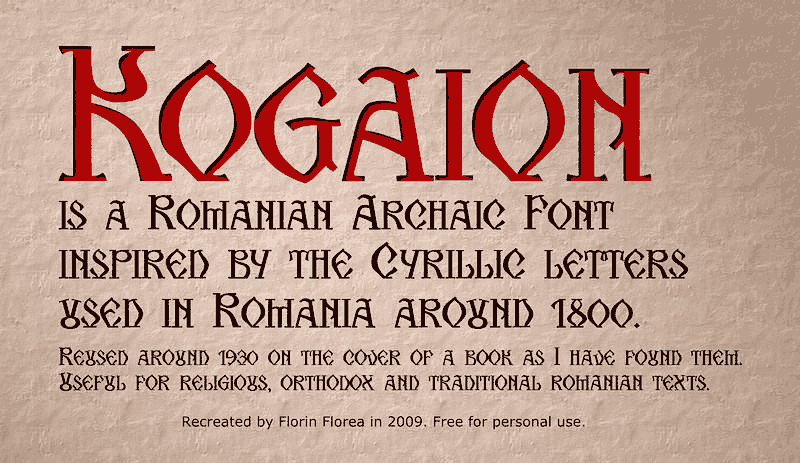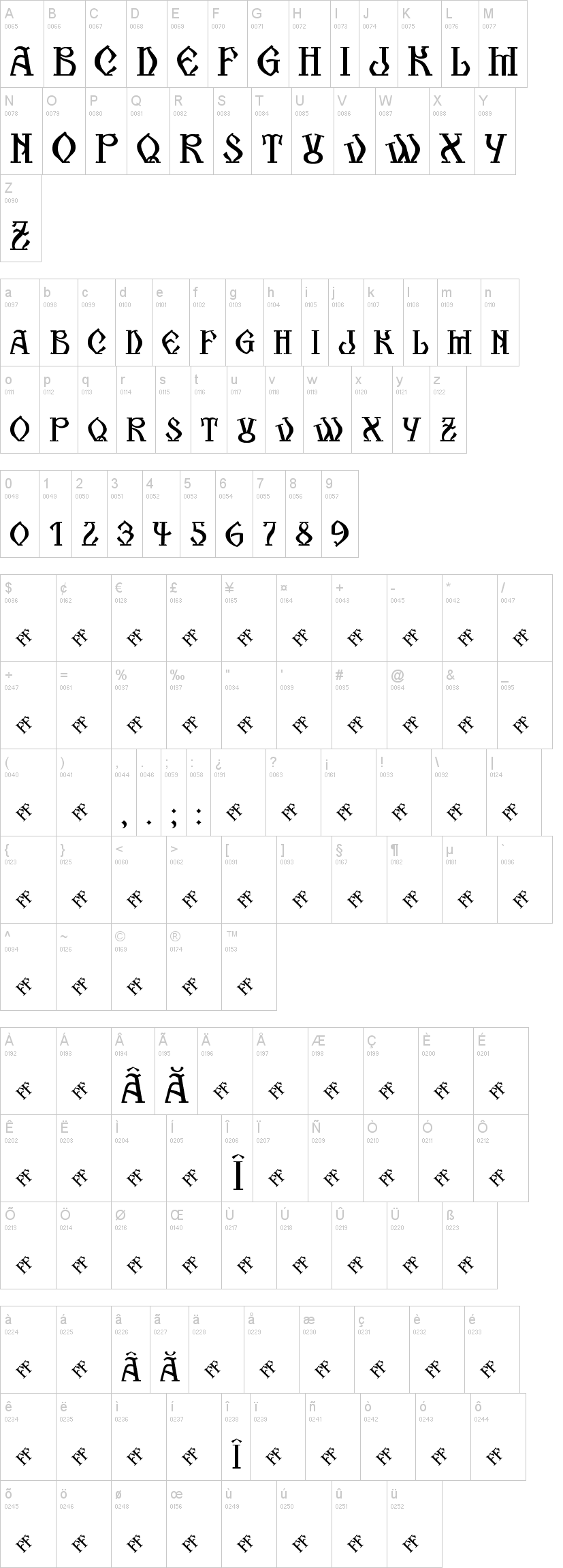
Note of the authorThis is an old Romanian style typeface called "Arhaic Romanesc", based on Cyrillic alphabet that was used in Romania around 1500 until 1860 for Church Slavonic and Romanian texts. The old lettershapes were later used for the Latin alphabet preserving a sort of Romanian traditional feel. I have started this font (Kogaion) in 2009 (http://florinf.wordpress.com/2009/04/14/kogaion-arhaic-romanesc-ex-cali/). It is still a Work In Progress. It is a revival based on an old book cover (around 1930) and had only 10 letters as it was used in the title, I had to create 16 in the same style. I also added numbers and Romanian diacritics.